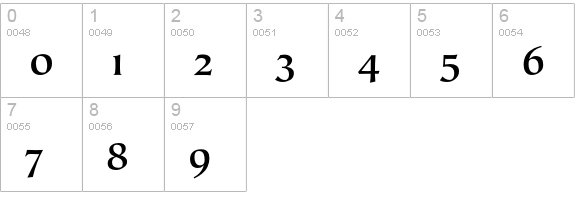
TiepoloSCEF-Bold is a strong, high-contrast variant in the TiepoloSCEF typeface family \xE2\x80\x94 well suited to headlines, attention-grabbing titles, and strong calls-to-action.
TiepoloSCEF-Bold font is an exquisite and captivating typeface that effortlessly combines elegance with a modern twist. This font is the epitome of sophistication, with its bold and strong letterforms that exude confidence and style. Designed with meticulous attention to detail, TiepoloSCEF-Bold font offers a unique and refined look that is suitable for a wide range of design projects. Whether you're creating eye-catching headlines, striking logos, or elegant invitations, this font will elevate your designs to new heights. The free availability of TiepoloSCEF-Bold font makes it even more appealing to designers and creatives. It can be easily downloaded from FontsMarket.com, allowing you to unleash your creativity without any restrictions or limitations. This accessibility ensures that everyone can enjoy the beauty and versatility of this font, regardless of their budget or design requirements. With TiepoloSCEF-Bold font, your designs will effortlessly stand out from the crowd and make a lasting impression. Its timeless appeal and versatility make it a valuable addition to any designer's toolkit. So why wait? Download TiepoloSCEF-Bold font for free at FontsMarket.com and let your creativity soar to new heights.